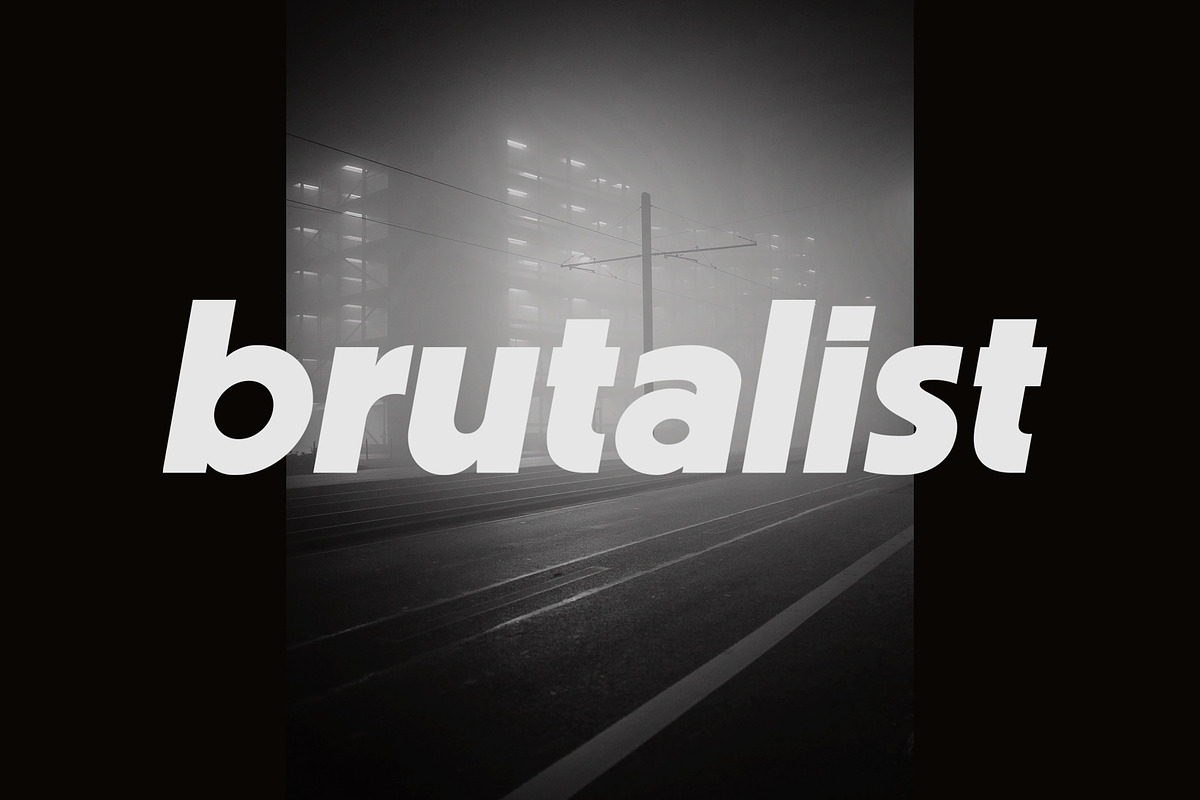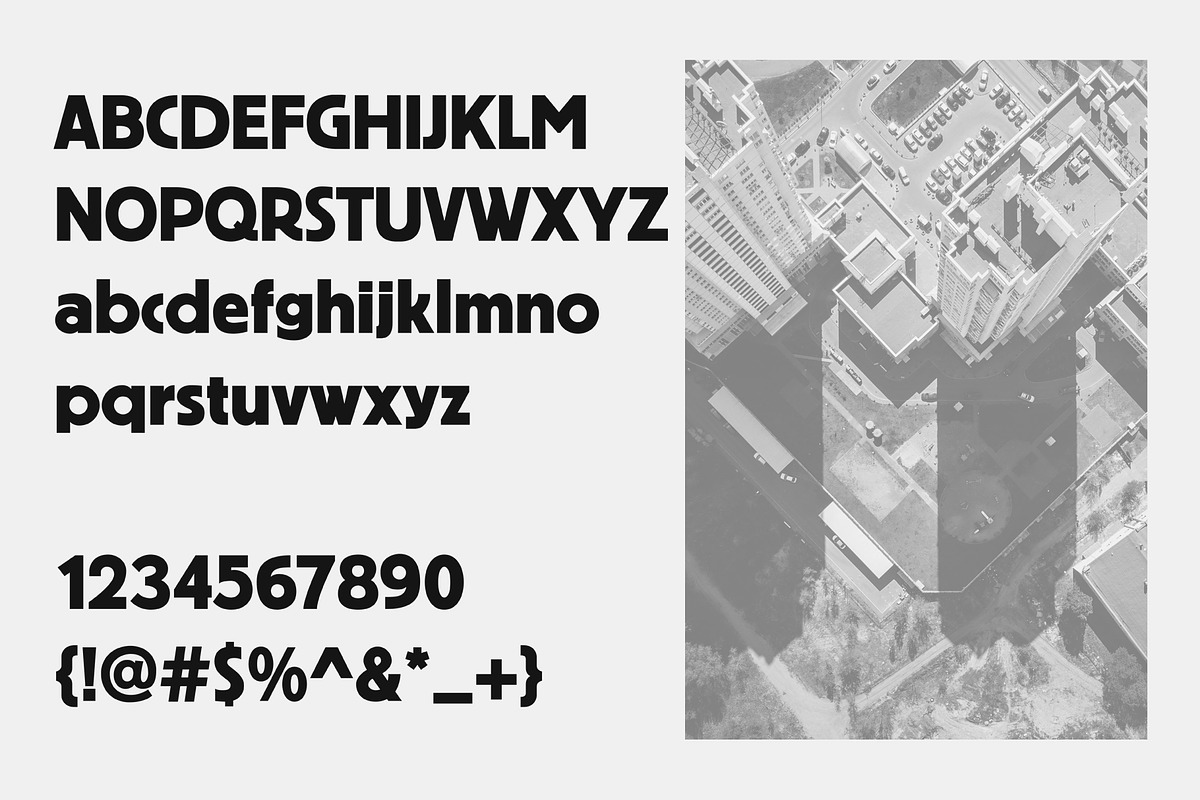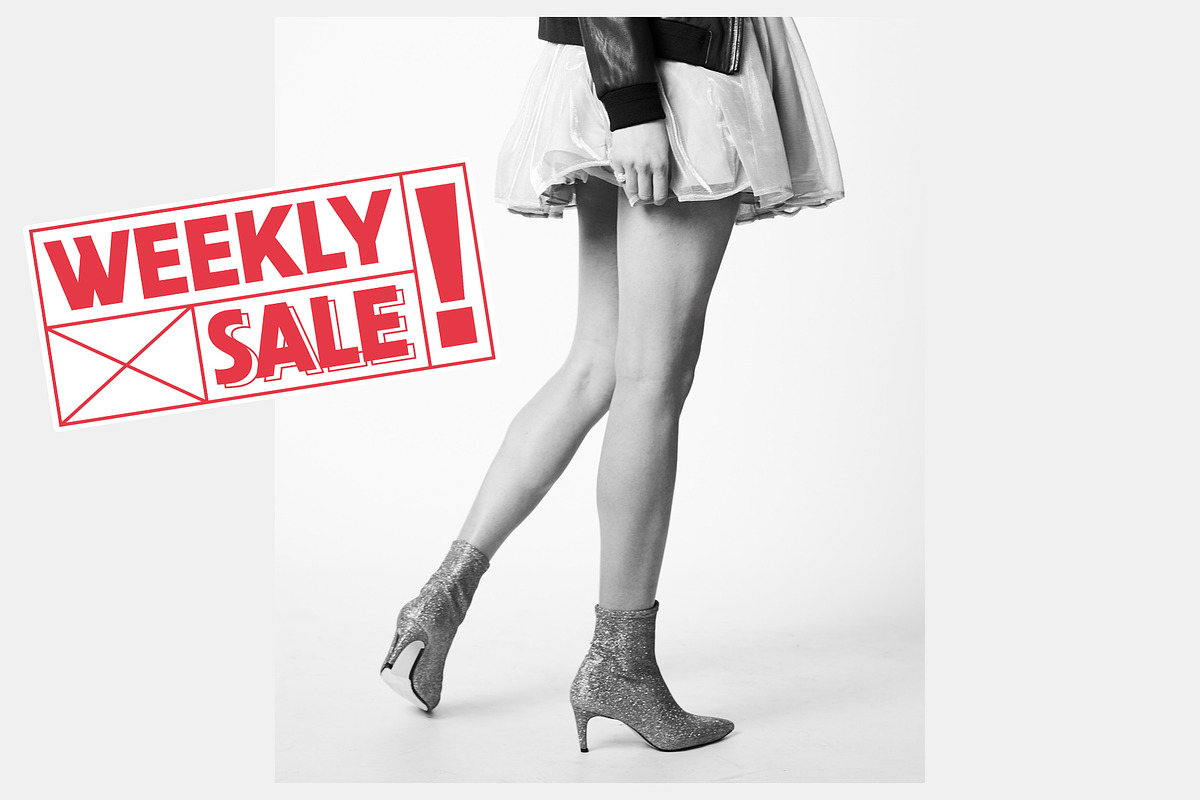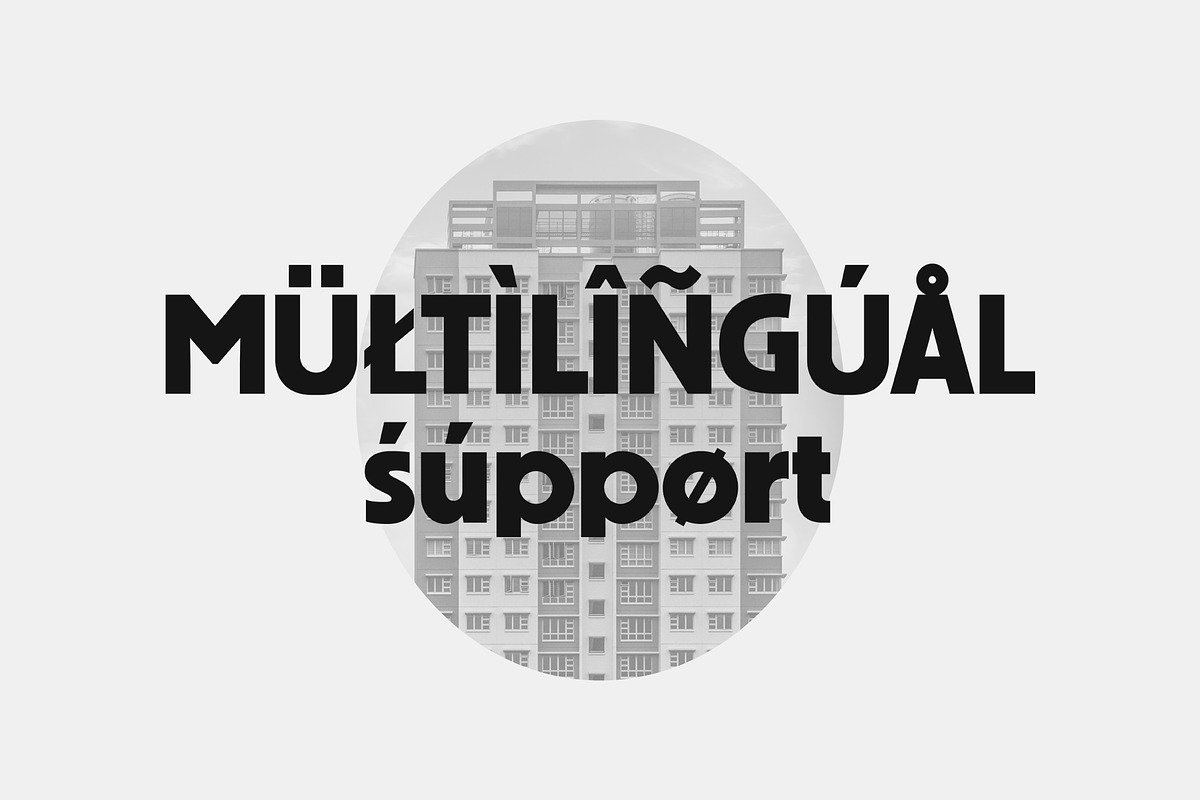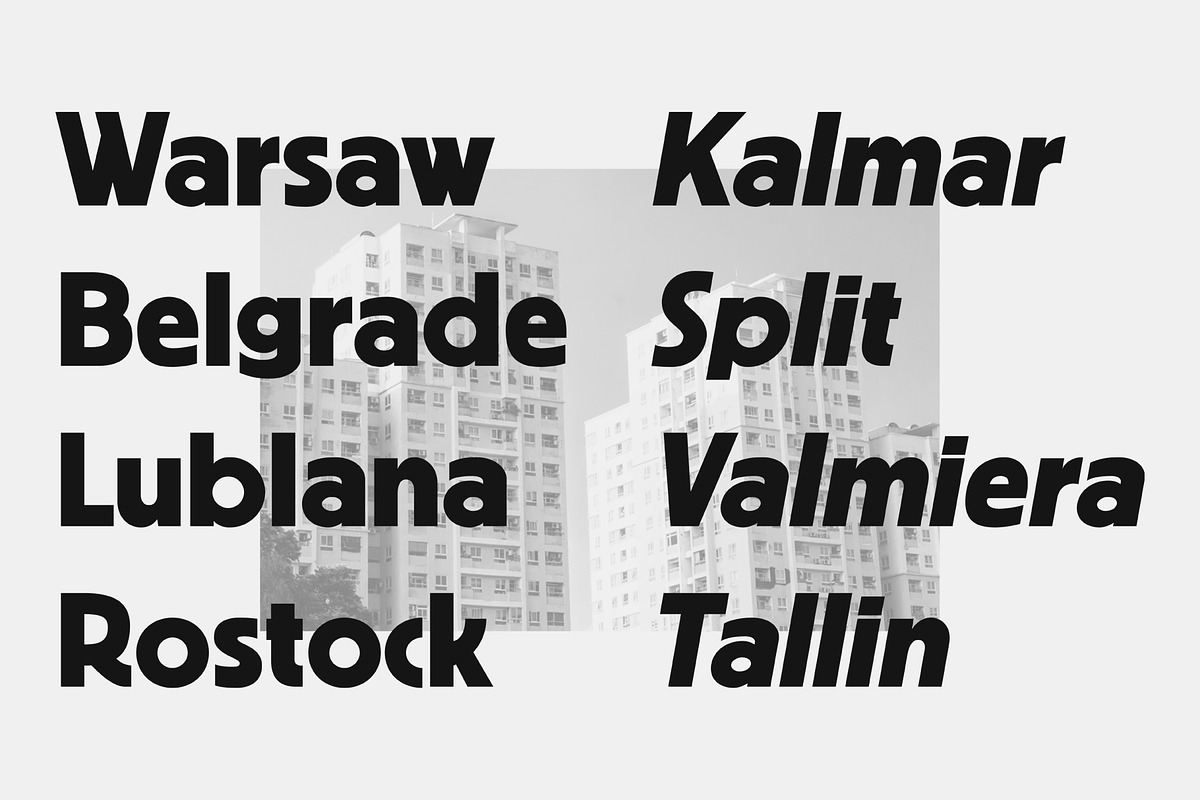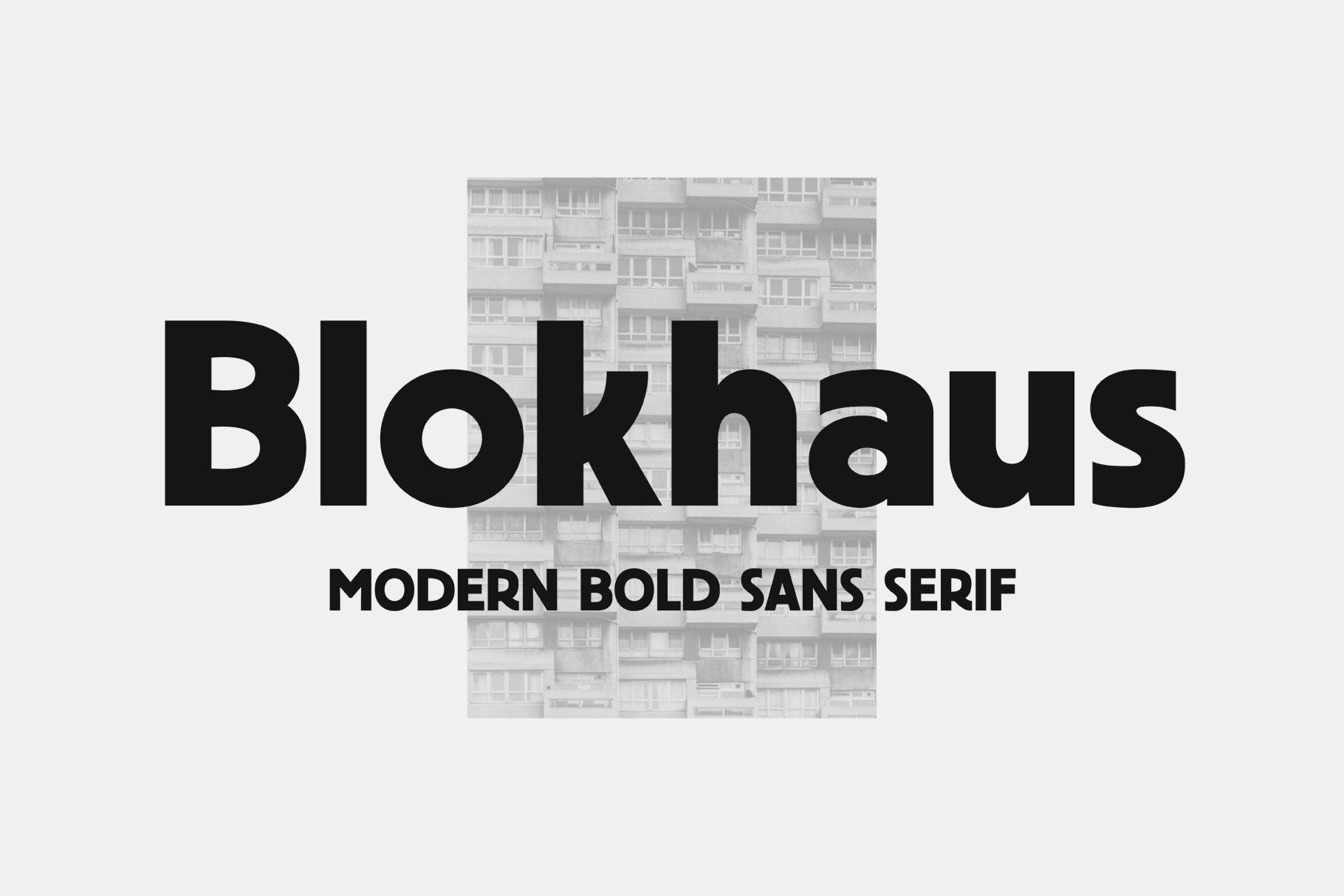
Blokhaus - Modern Sans Serif Font
*Before You buy check out "Modern Classic Font Bundle" - --- Blokhaus is a strong, bold sans-serif typeface inspired by the raw, structural aesthetics of 1970s brutalism. Its clean geometric shapes evoke the solidity of concrete architecture, making it ideal for impactful headings, branding, and modern editorial use. Available in both a solid and an outline style, Blokhaus delivers flexibility for dynamic typographic compositions. Whether you're creating websites, posters, logos, or printed media, Blokhaus adds a powerful, architectural edge to your designs. Blokhaus comes with 2 styles: - regular - outline Language support: ÀÁÂÃÄÅĀĄ Æ ĆÇ ÈÉÊËĒĘ ÌÍÎÏĪ Ð Ł ŃÑ ÒÓÔÕÖŒØ Ś ÙÚÛÜ ỲÝŶŸ ŻŹ Þß àáâãäåāą æ ćç èéêëēę ìíîïī ð ńñ òóôõöœø ś ùúûü ỳýŷÿ żź þ If you have any questions before or after you purchase, don't hesitate to ask me :) Thank you for visiting!